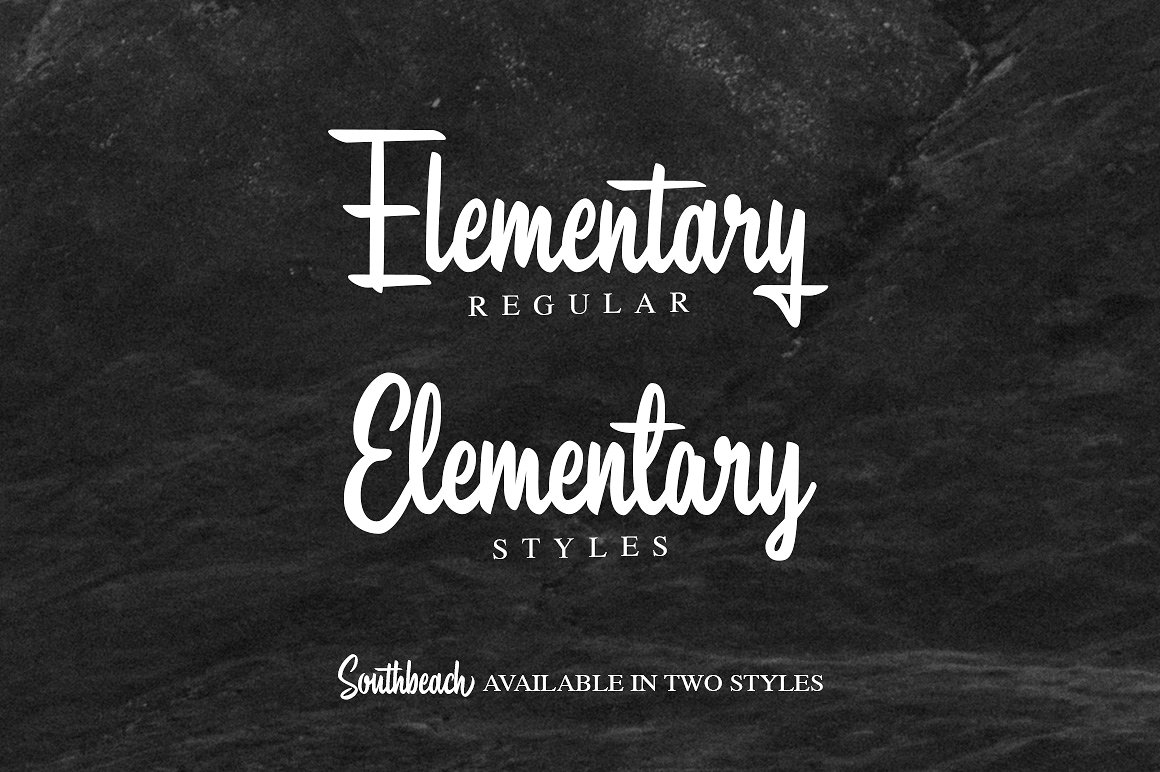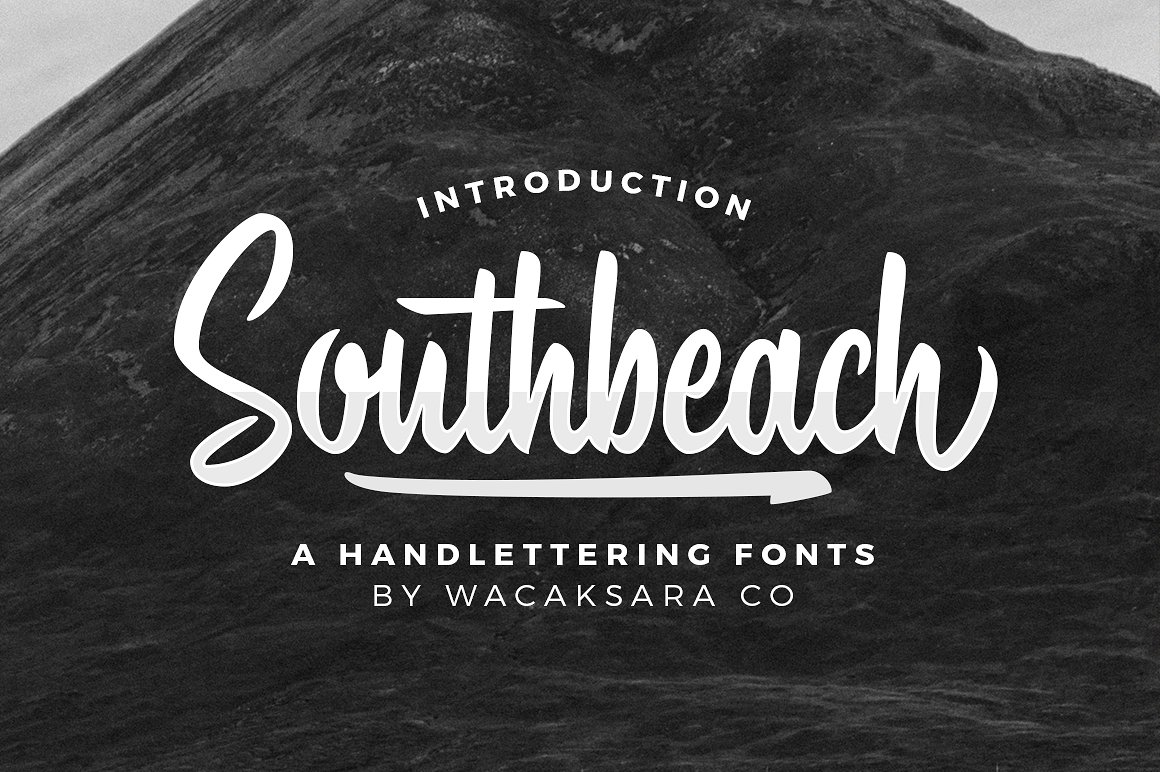
Southbeach Brush
Southbeach Brush Font
A handlettering styles brush font inspired by classic styles of paint stripped typography. It’s the perfect choice for personal branding projects, handwritten quotes, homeware designs, product packaging or simply as a modern & stylish text overlay to any background image.